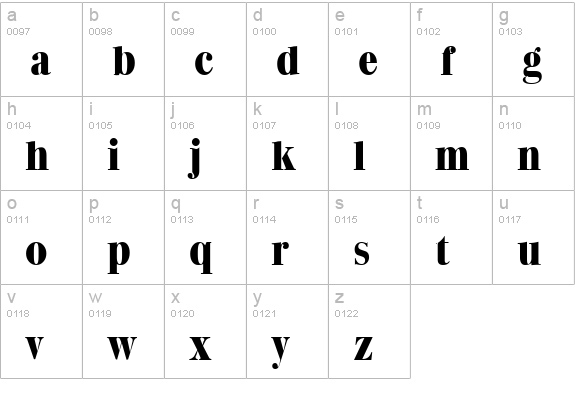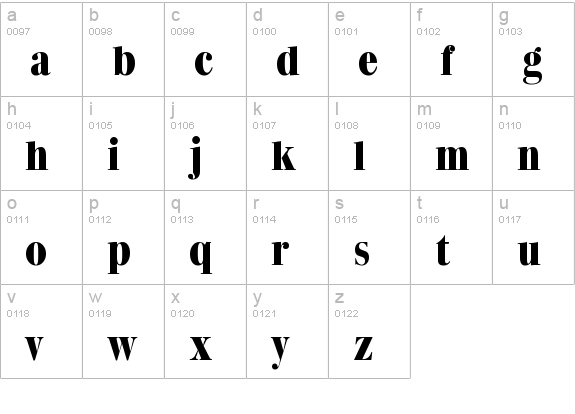
Quantas Extrabold Regular is an extra-heavy, attention-grabbing variant in the Quantas typeface family \xE2\x80\x94 well suited to high-impact headlines, posters, and bold branding.
Quanta Extrabold Regular font is a stunning display typeface that is sure to make a bold statement. With its strong and impactful letterforms, this font is perfect for headlines, logos, and any design project that requires a touch of elegance and power. The generous curves and thick strokes of Quanta Extrabold Regular font exude confidence and strength, making it a standout choice for those who want to make a lasting impression. Its refined and modern appearance ensures readability, even at small sizes, making it versatile for a wide range of applications. One of the most attractive features of Quanta Extrabold Regular font is that it is available for free. Yes, you read that right! This high-quality typeface can be freely downloaded from FontsMarket.com. This means that you can enhance your designs with this exceptional font without any cost or restrictions. Whether you're a professional designer or a typography enthusiast, Quanta Extrabold Regular font is a must-have in your font collection. Its timeless and contemporary appeal will elevate your designs and captivate your audience. So why wait? Head over to FontsMarket.com to download Quanta Extrabold Regular font and unlock its limitless creative possibilities.